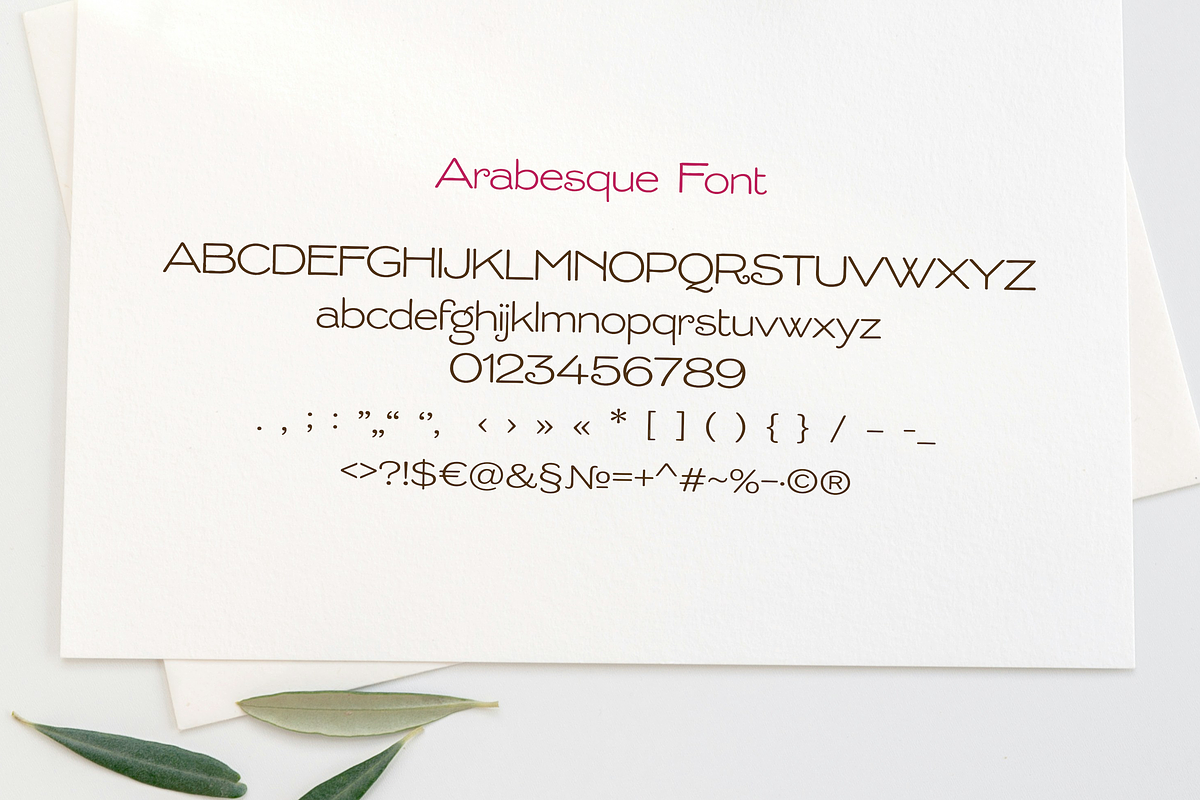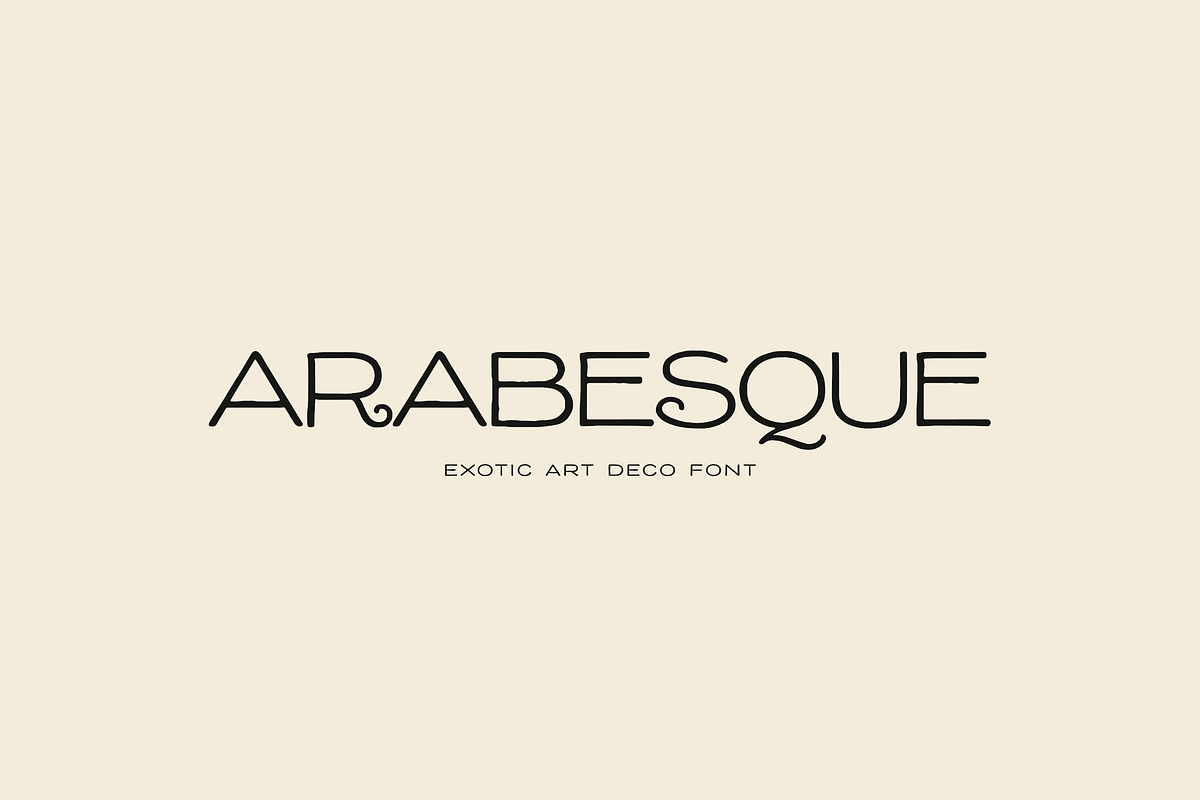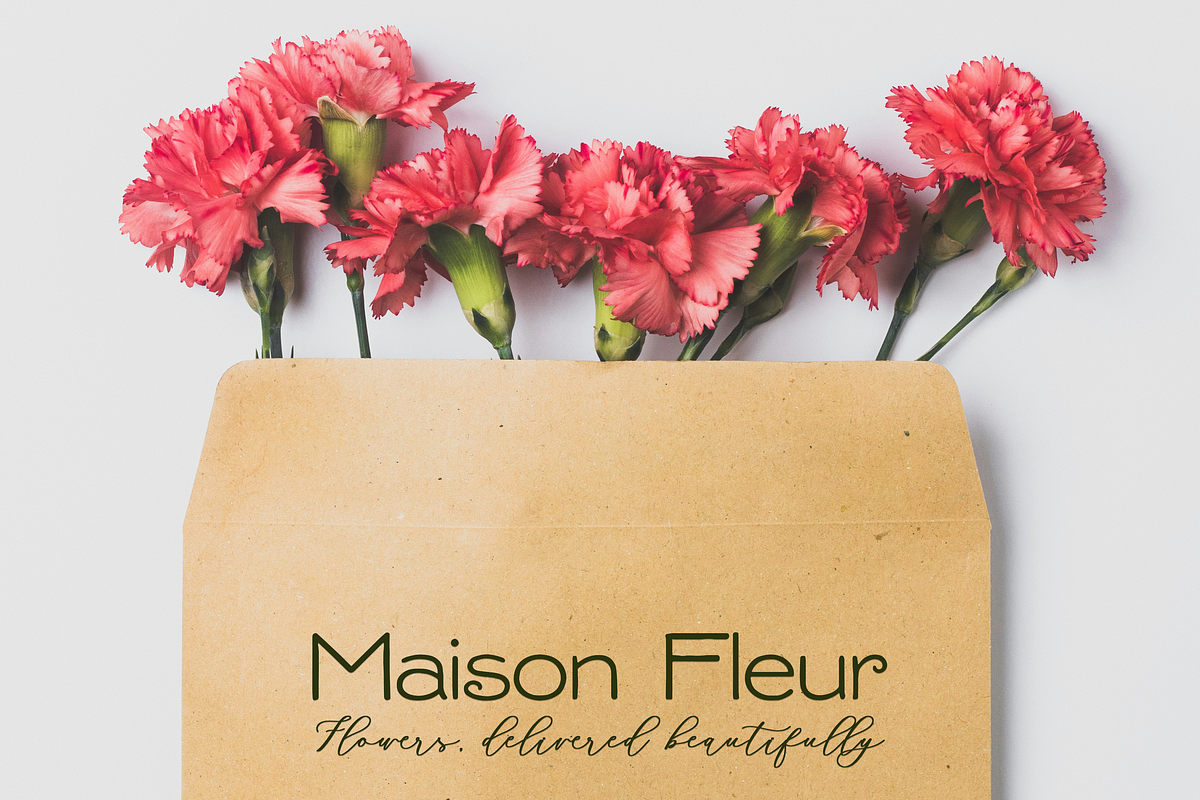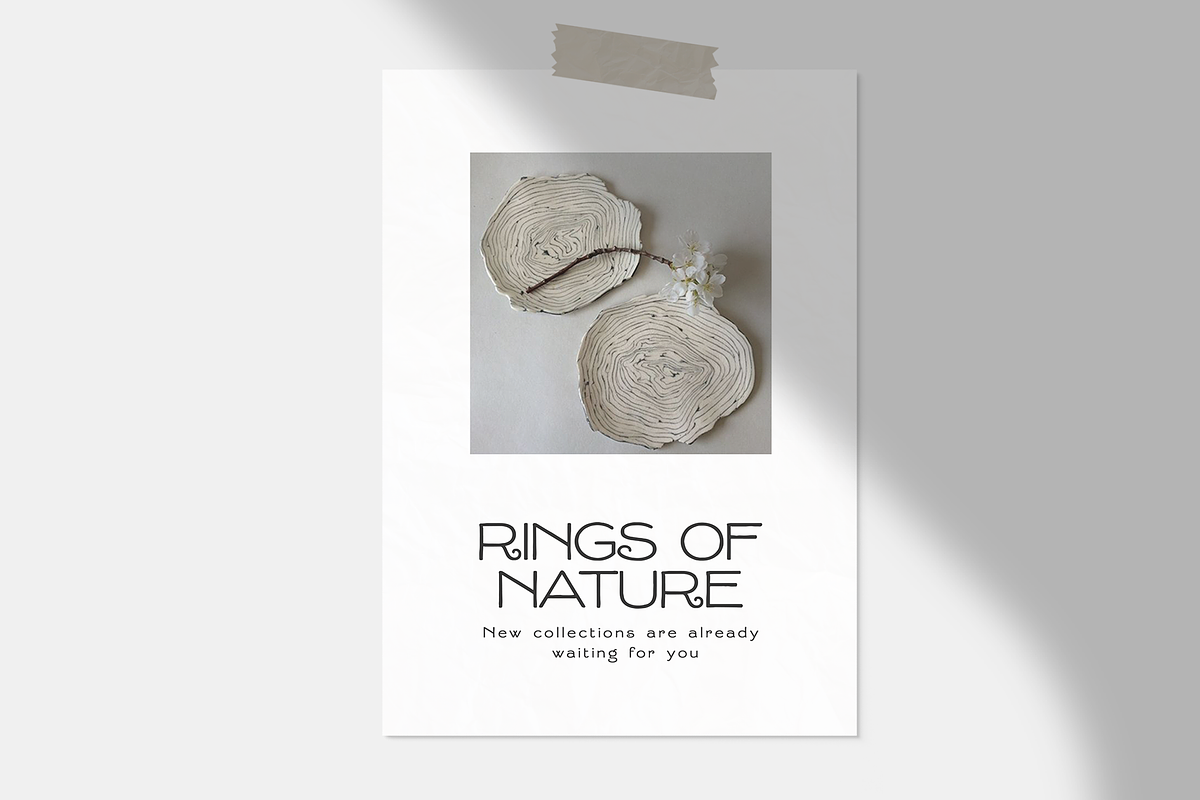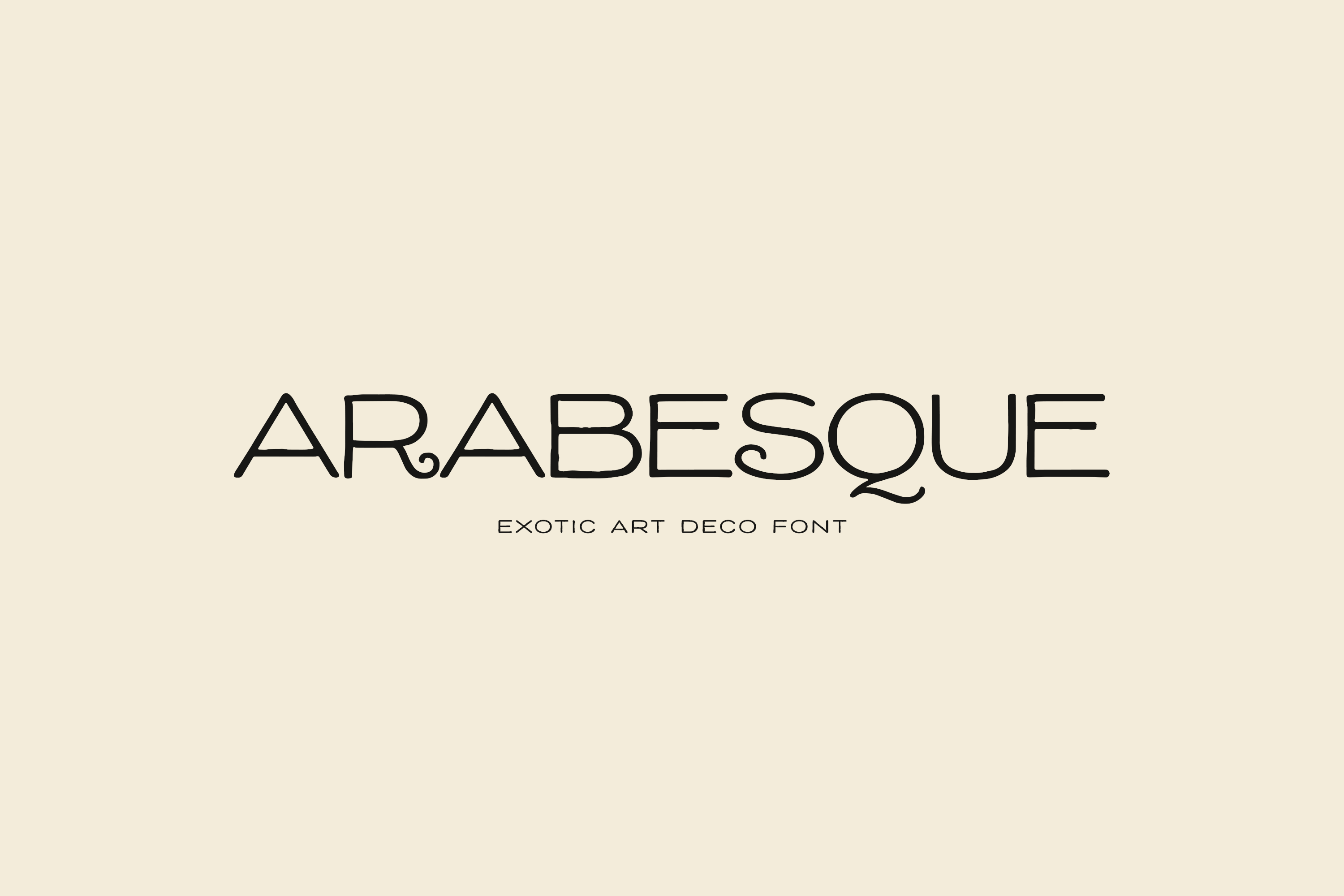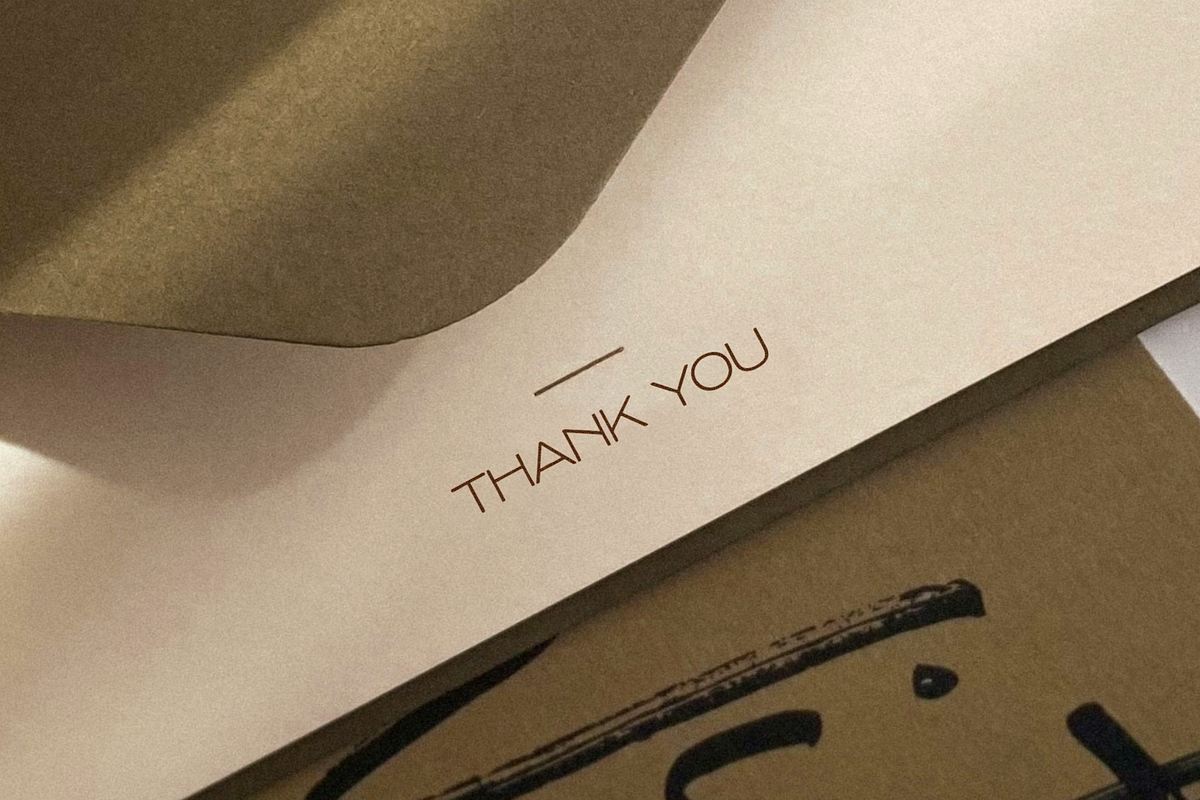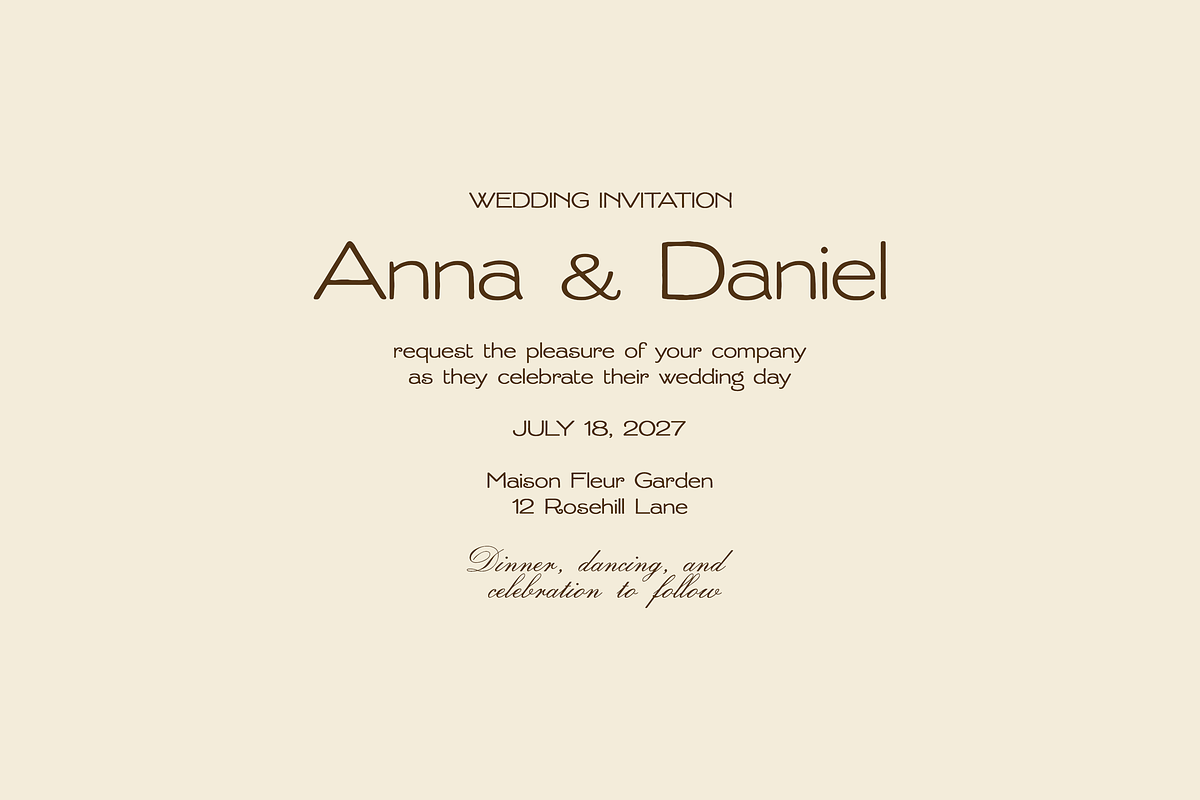
Arabesque Art Deco Font
Arabesque is an exotic art deco font with a refined decorative character and a distinctive vintage feel. Inspired by ornamental curves, elegant geometry, and eastern charm, this typeface brings a unique and sophisticated look to any design.
Perfect for branding, logo design, packaging, wedding stationery, editorial layouts, posters, beauty products, fashion projects, and social media graphics, Arabesque adds a graceful and artistic touch wherever it appears.
With its slim letterforms and stylish details, this font is ideal for creating luxurious, memorable, and expressive typography.